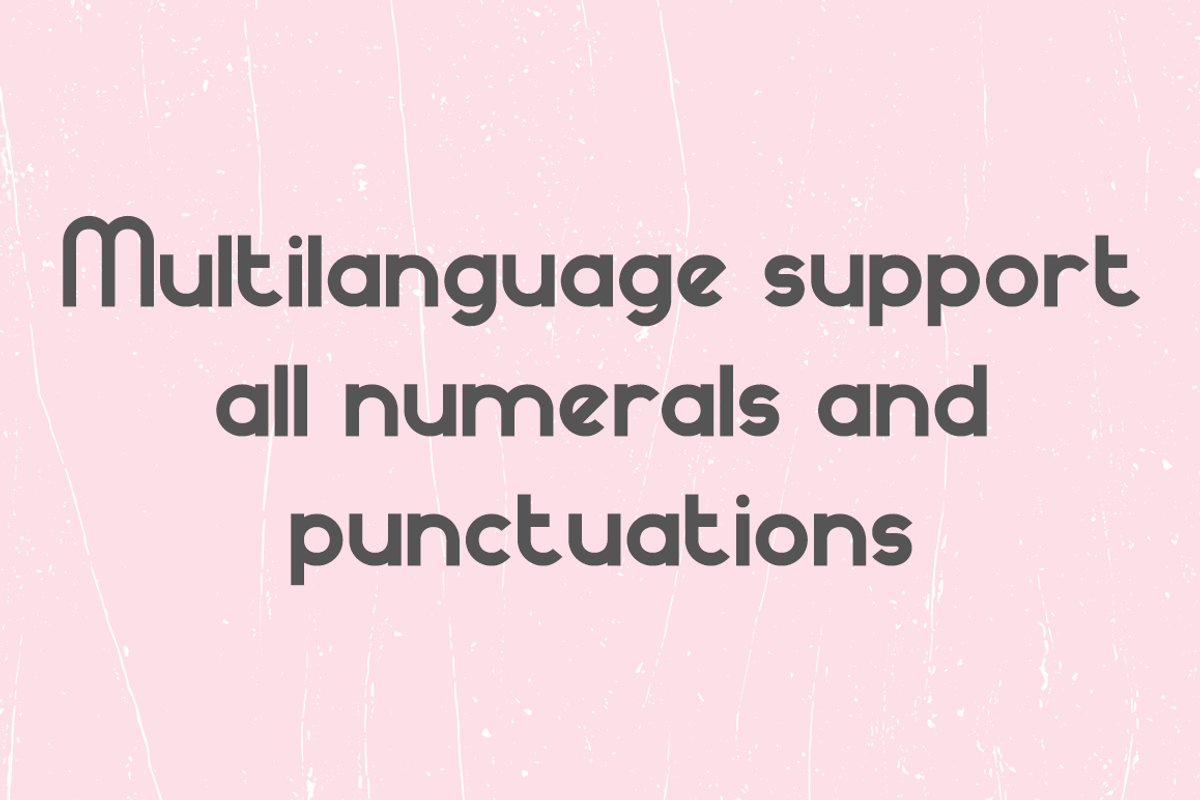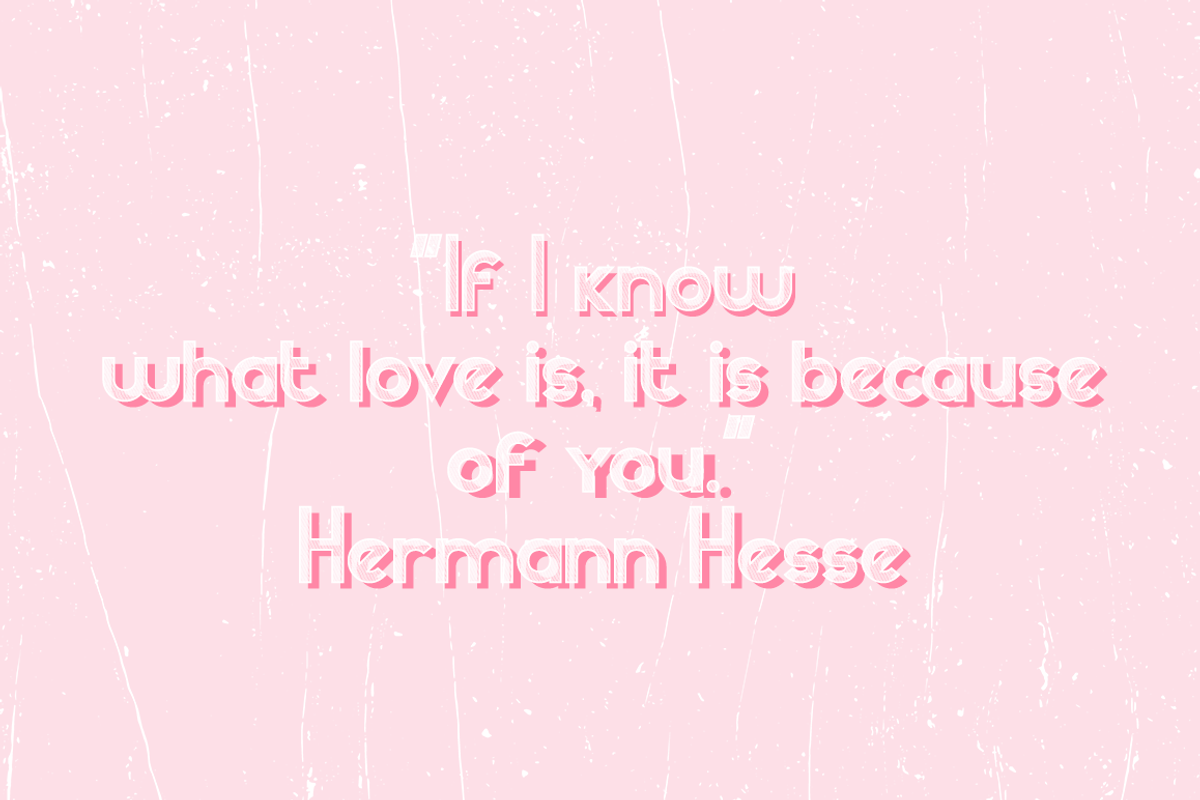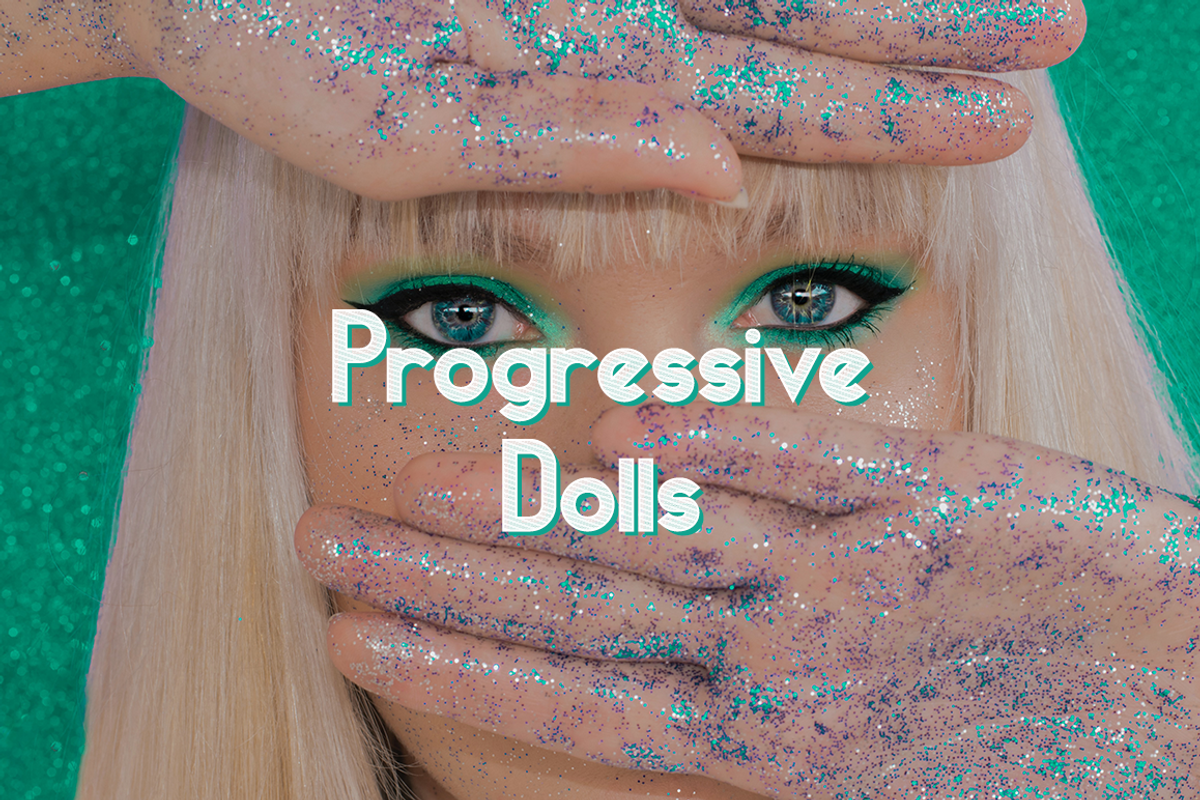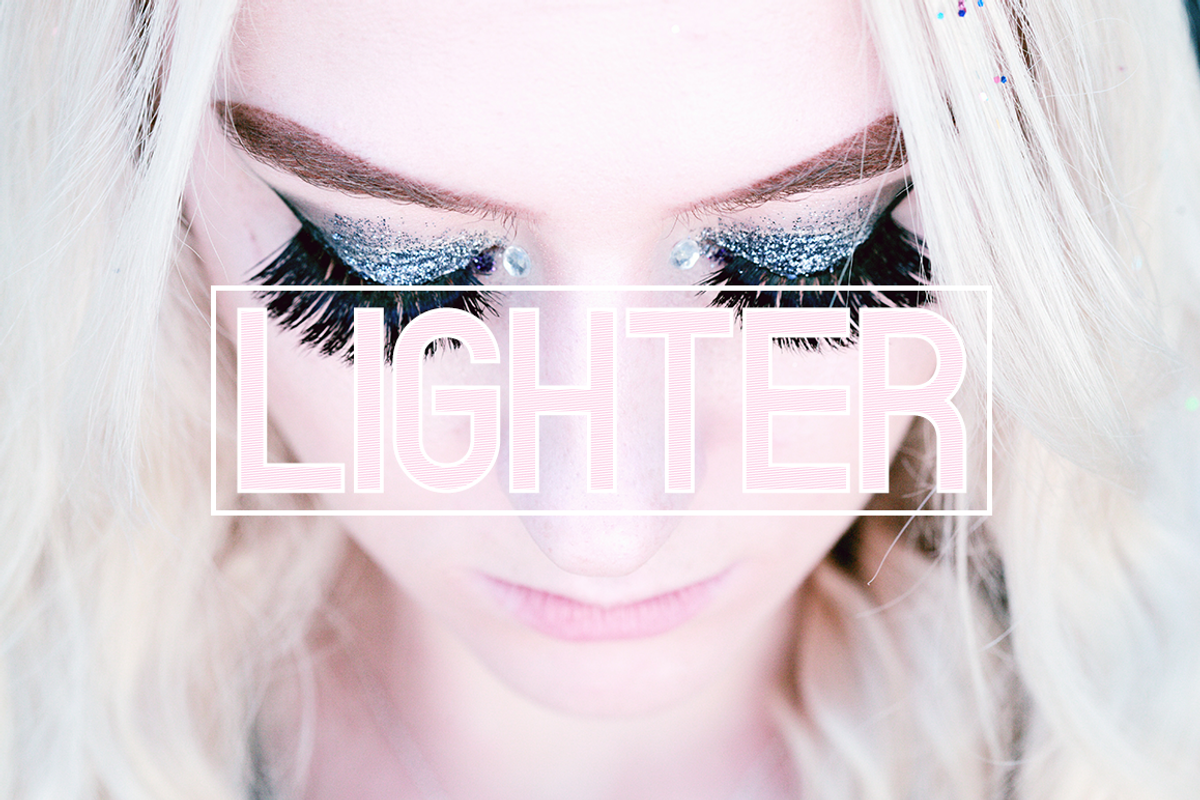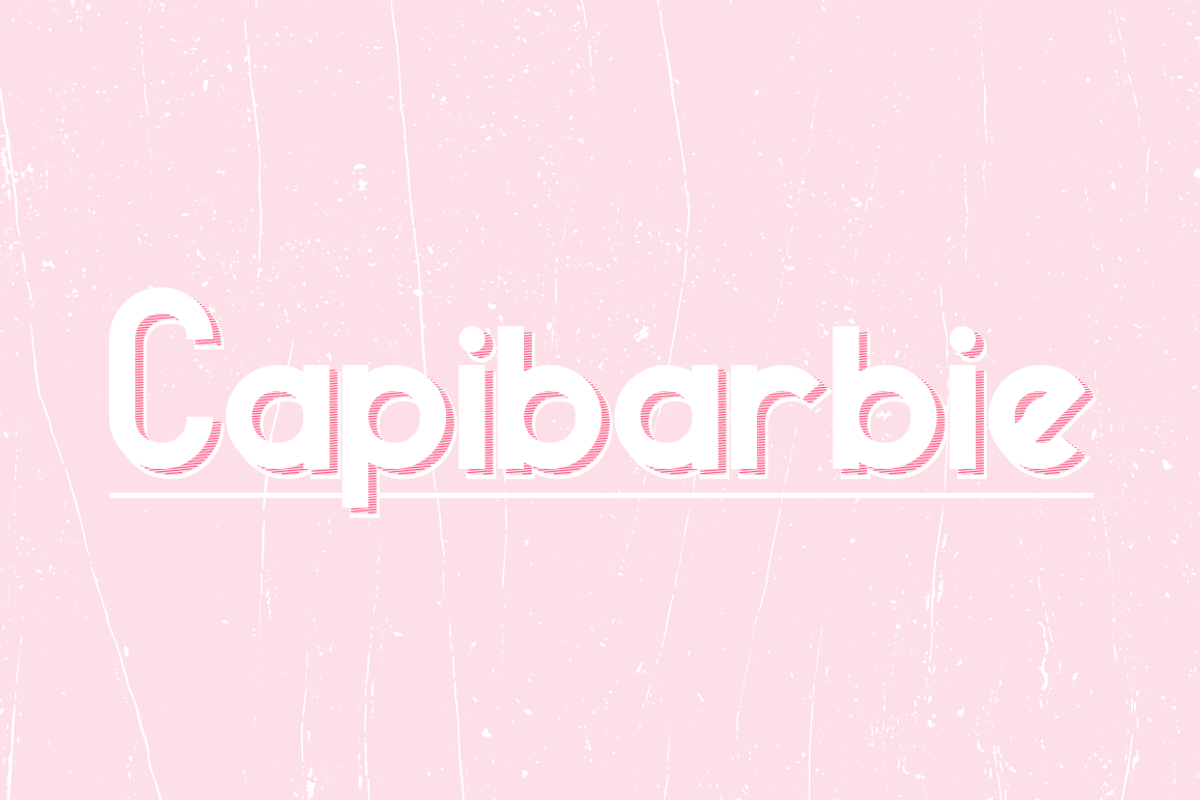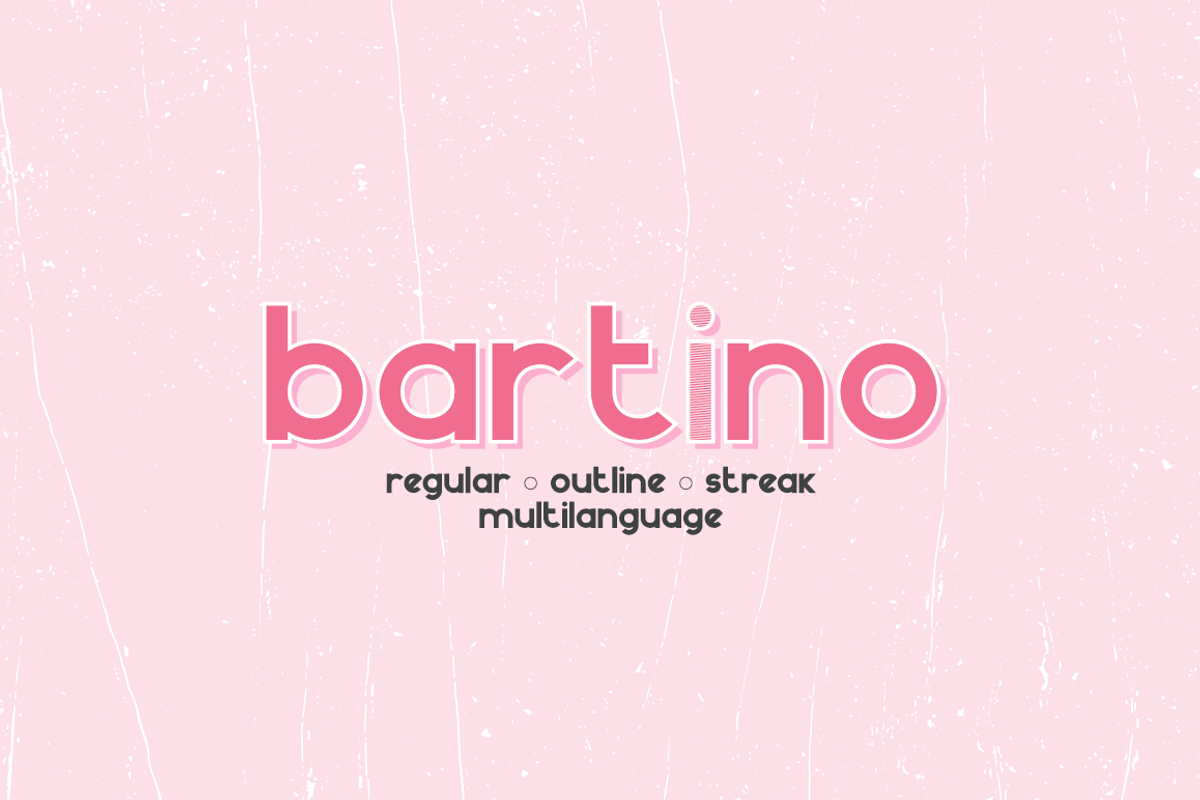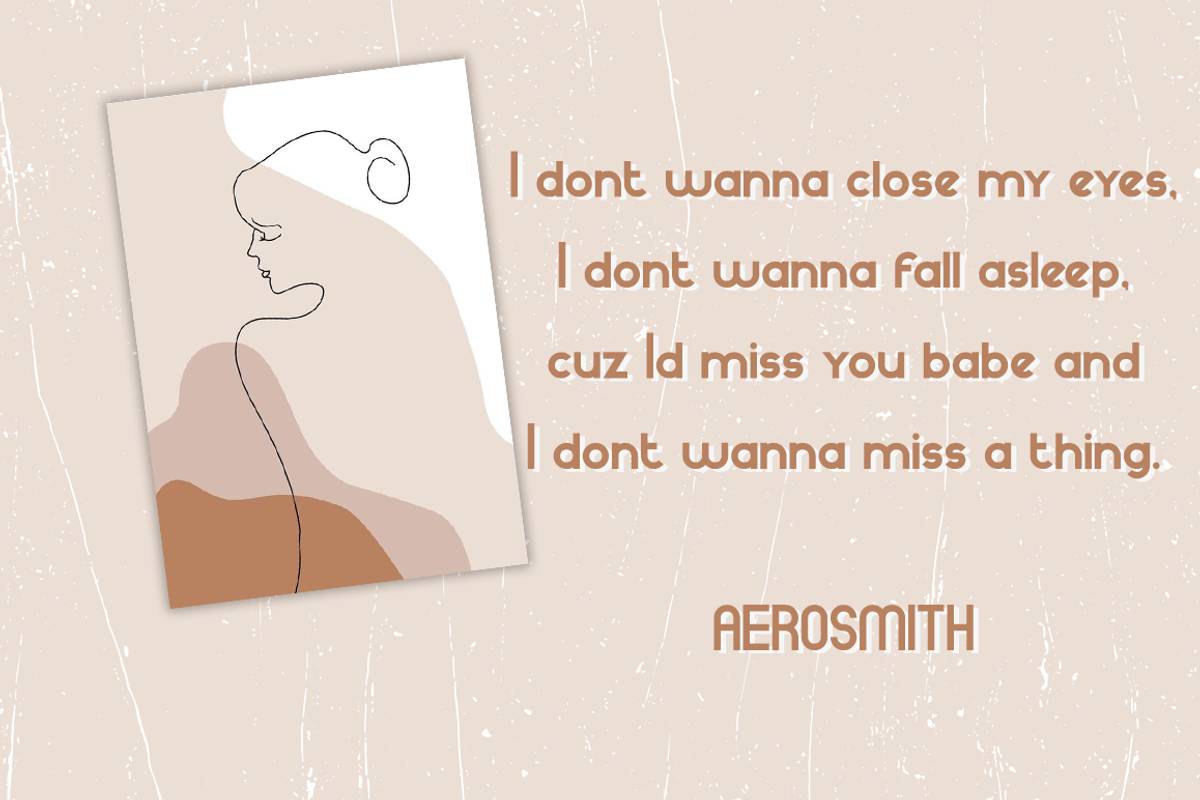
Bartino
Bartino Font Family - a new fresh handmade sans serif font.
Very suitable for greeting cards, branding materials, business cards, quotes, posters, and more!This font are perfect for wedding postcard. Or you can create perfect and unique design of your logo, blog, stationery, marketing, magazines and more :)
- outline version
- streak version